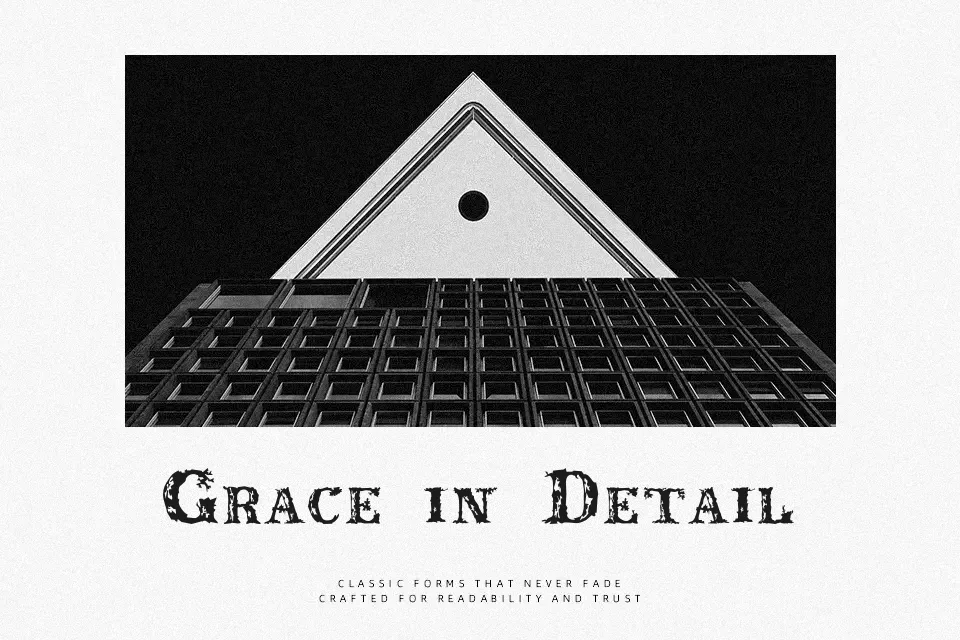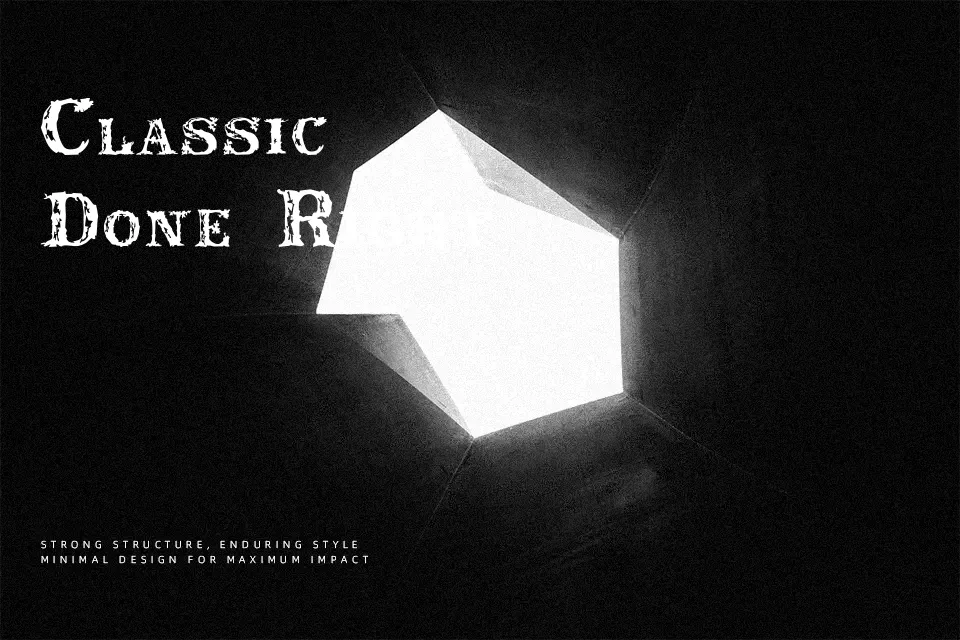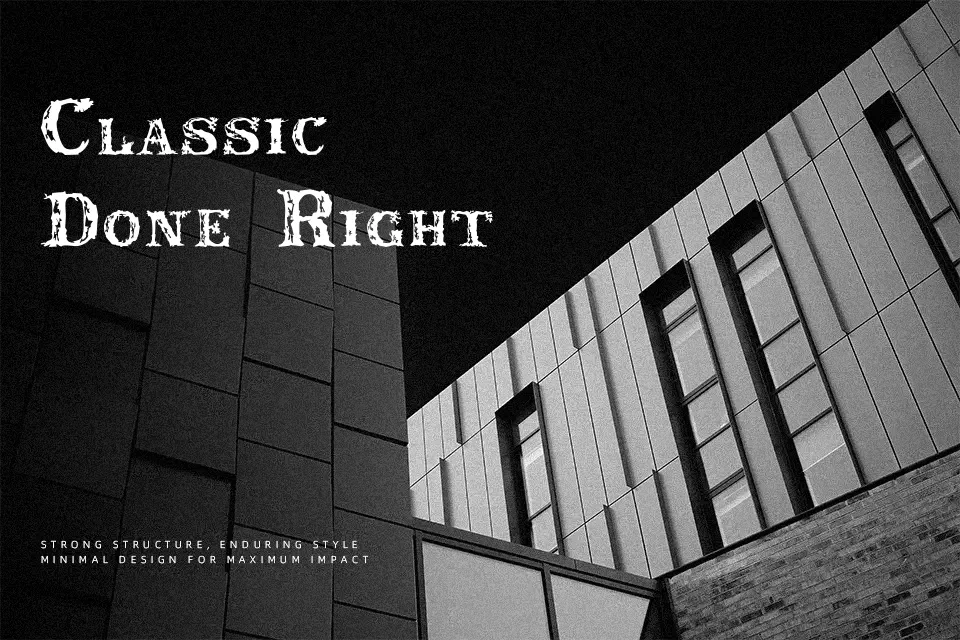
Rustic Font
Designed by Intellecta Design
Rustic Font captures the essence of vintage woodblock typography through its distinctly eroded strokes and heavy, distressed letterforms. The characters feature uneven, textured boundaries that give the typeface a genuinely aged and handcrafted appearance. With solid proportions and relatively tight spacing, the letterforms hold together well in prominent display settings. The rough detailing creates an excellent organic rhythm across larger words. However, these same decorative textures become a liability at smaller scales, where the eroded elements start to blur and reduce continuous reading comfort. This rugged design performs best when displayed at larger sizes, making it an excellent choice for bold headlines, rustic branding, and period-specific artwork.
vintage product packaging, antique festival posters, coffee shop signage
long paragraph text, small interface labels, dense editorial layouts
Perfect for branding, headline, and packaging, with a classic and decorative style.